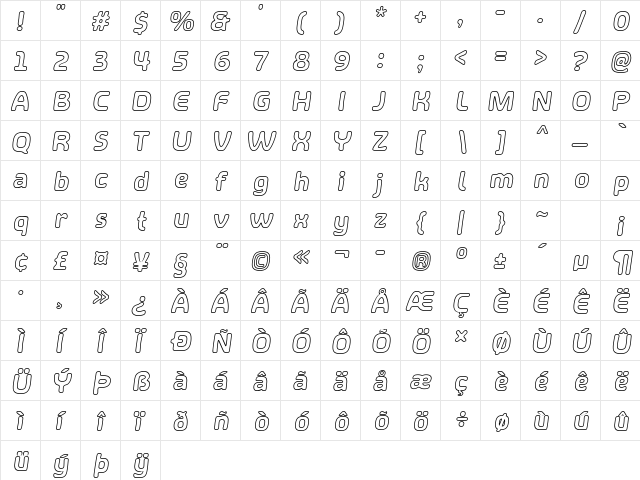
SHA Outline Italic
| Foundry | 7NTypes |
| Designer | Situjuh Nazara |
Design Context for SHA Outline Typeface
SHA Outline is built around its visual character rather than neutral utility — its distinctive forms are designed to make an impression at display sizes. Its italic angle brings a sense of urgency and motion to the letterforms.
Font Pairing: Pair with a clean neutral sans-serif for body copy to let SHA Outline's character lead without overwhelming the composition.
Pro Tip: Treat SHA Outline as the centrepiece of your typographic hierarchy. One strong heading set in a decorative face can carry an entire layout.